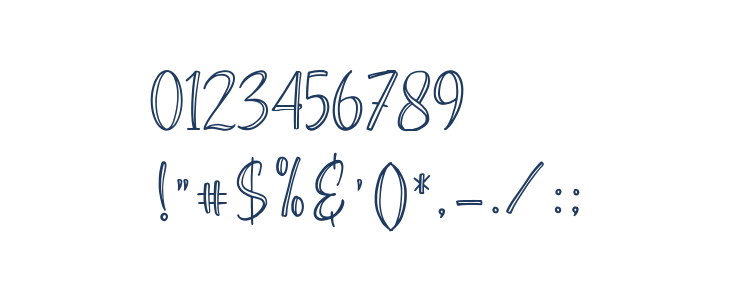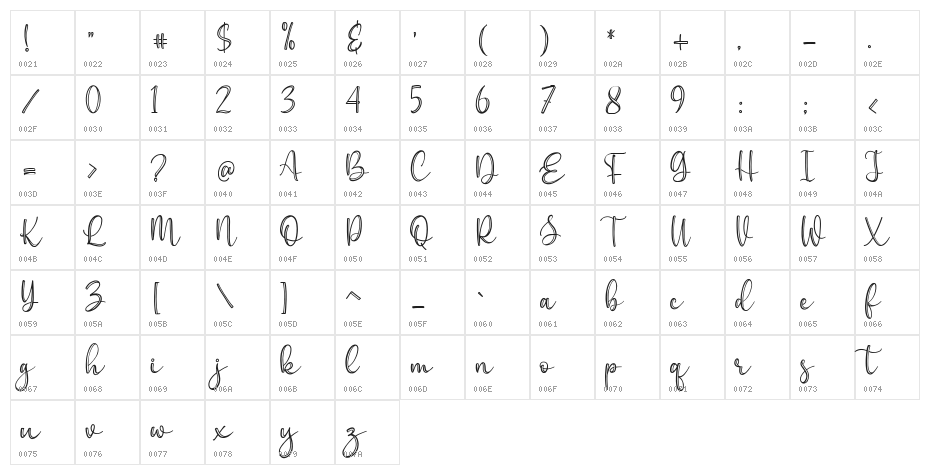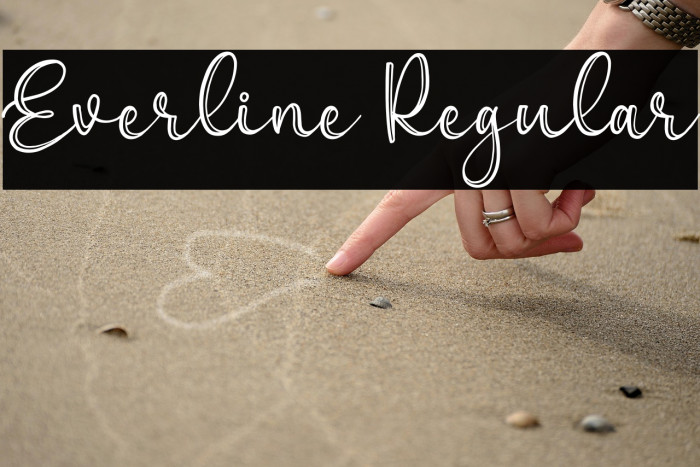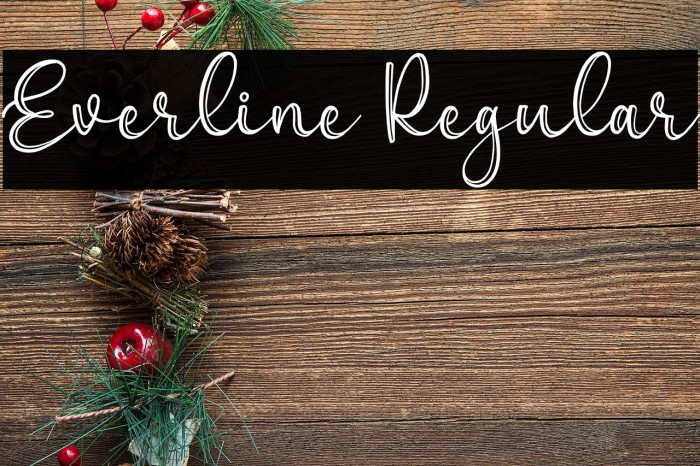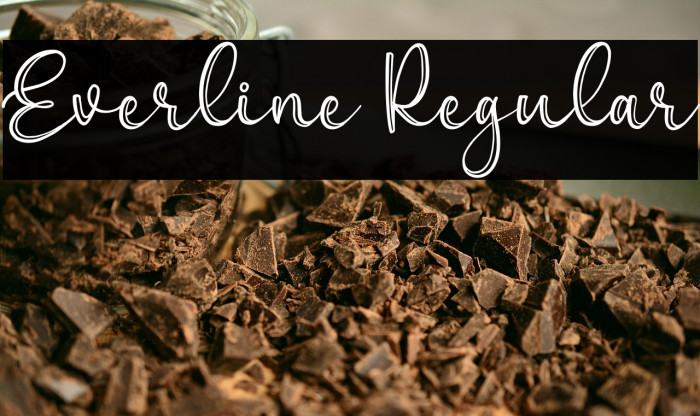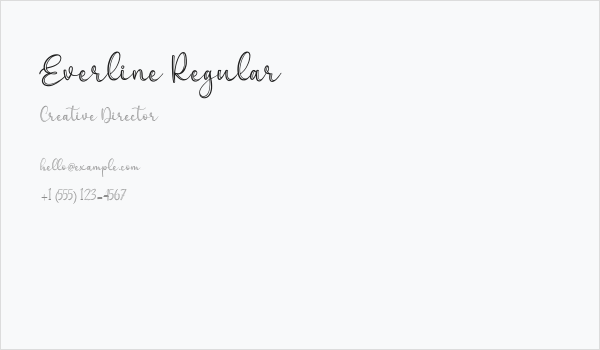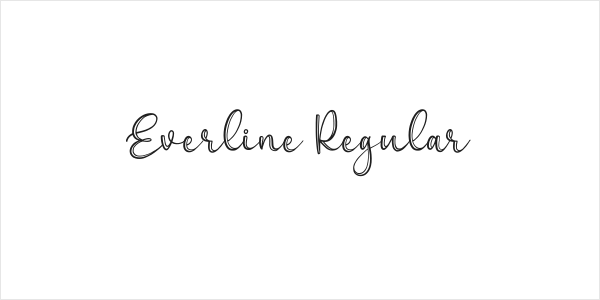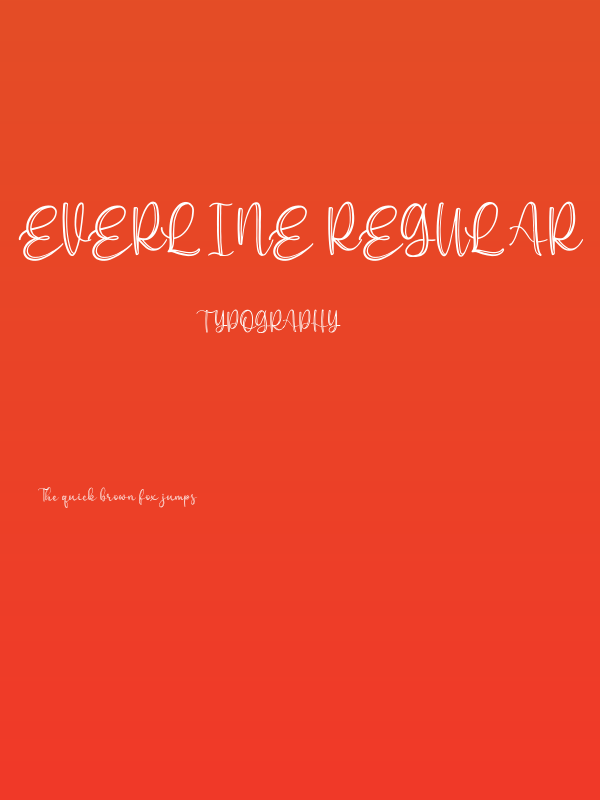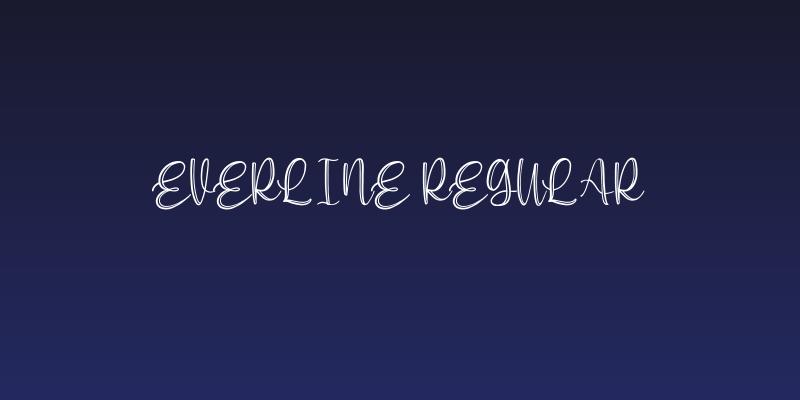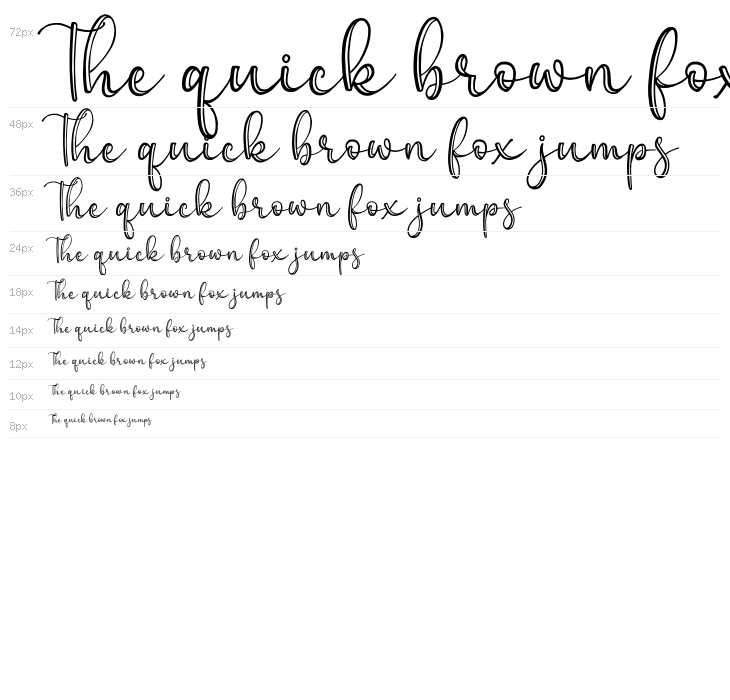
Everline Regular Font
Everline Regular Description
This font features an elegant and flowing script style, characterized by its smooth, continuous strokes and a handwritten appearance. The uppercase letters are ornate and slightly larger, with loops and curves that add a touch of sophistication. The lowercase letters maintain a consistent flow, enhancing readability while preserving the artistic flair. Numbers and special characters are designed to match the overall aesthetic, with a playful yet refined look. The font's delicate lines and graceful curves make it suitable for projects that require a personal and stylish touch.
| Use Case | Logos, Invitations, Headlines |
| Proposed Projects | Ideal for wedding invitations, greeting cards, branding, and social media graphics. |